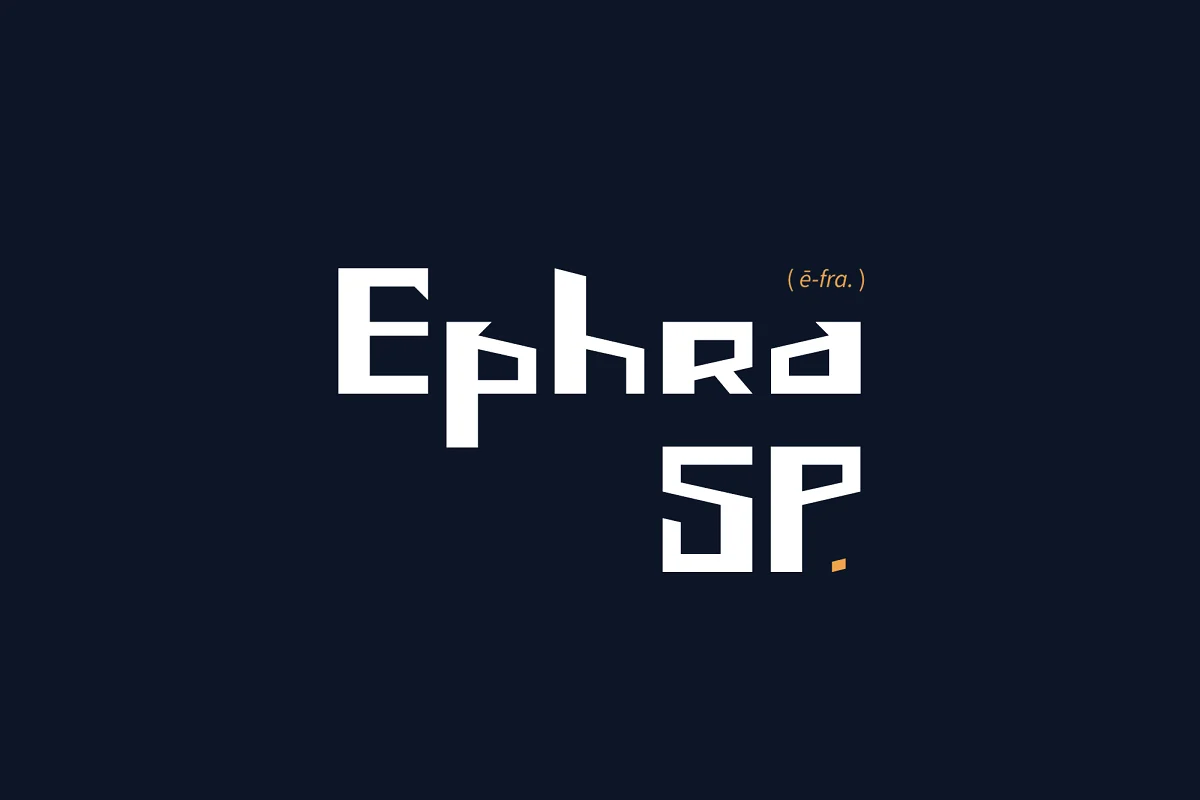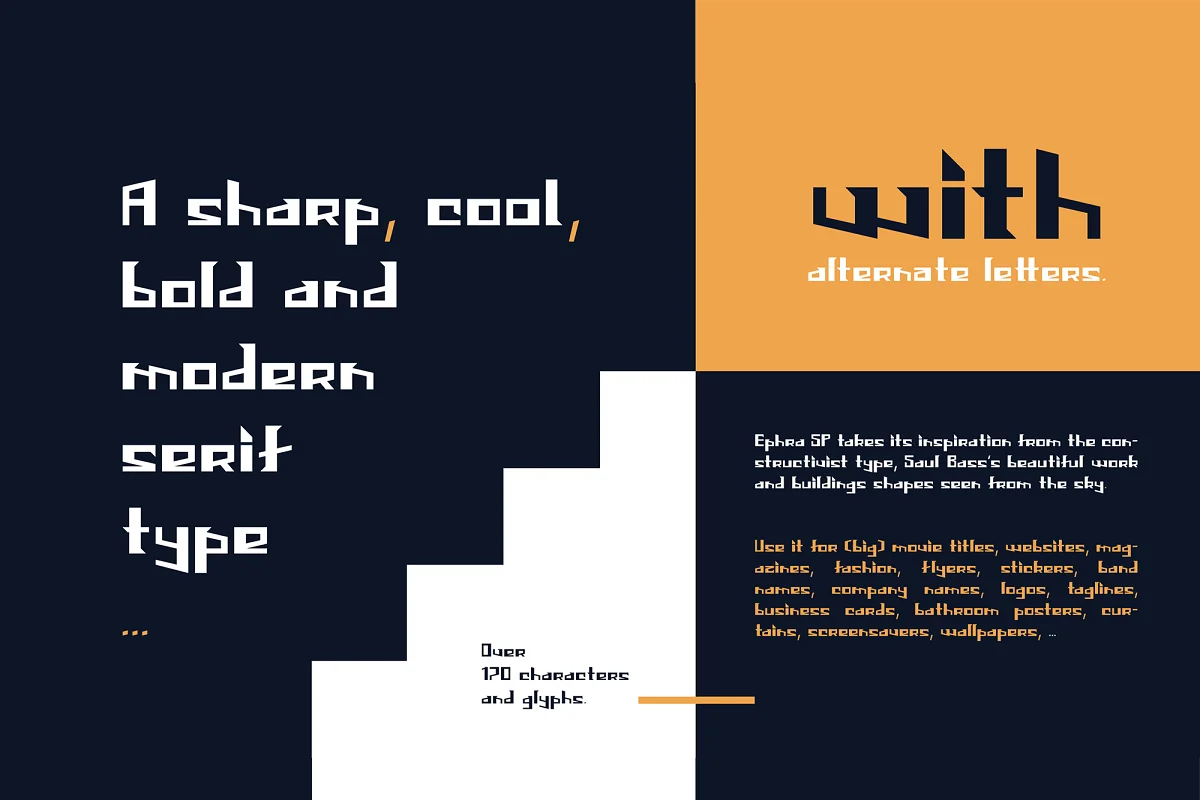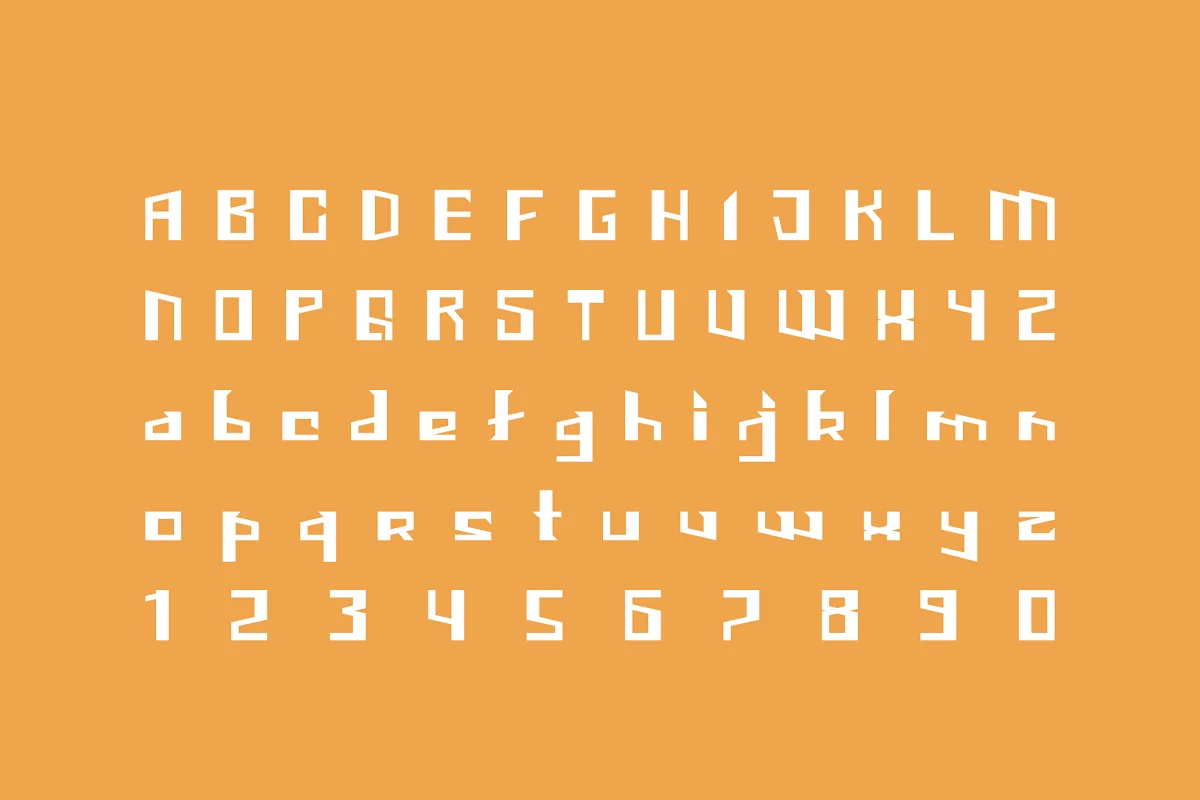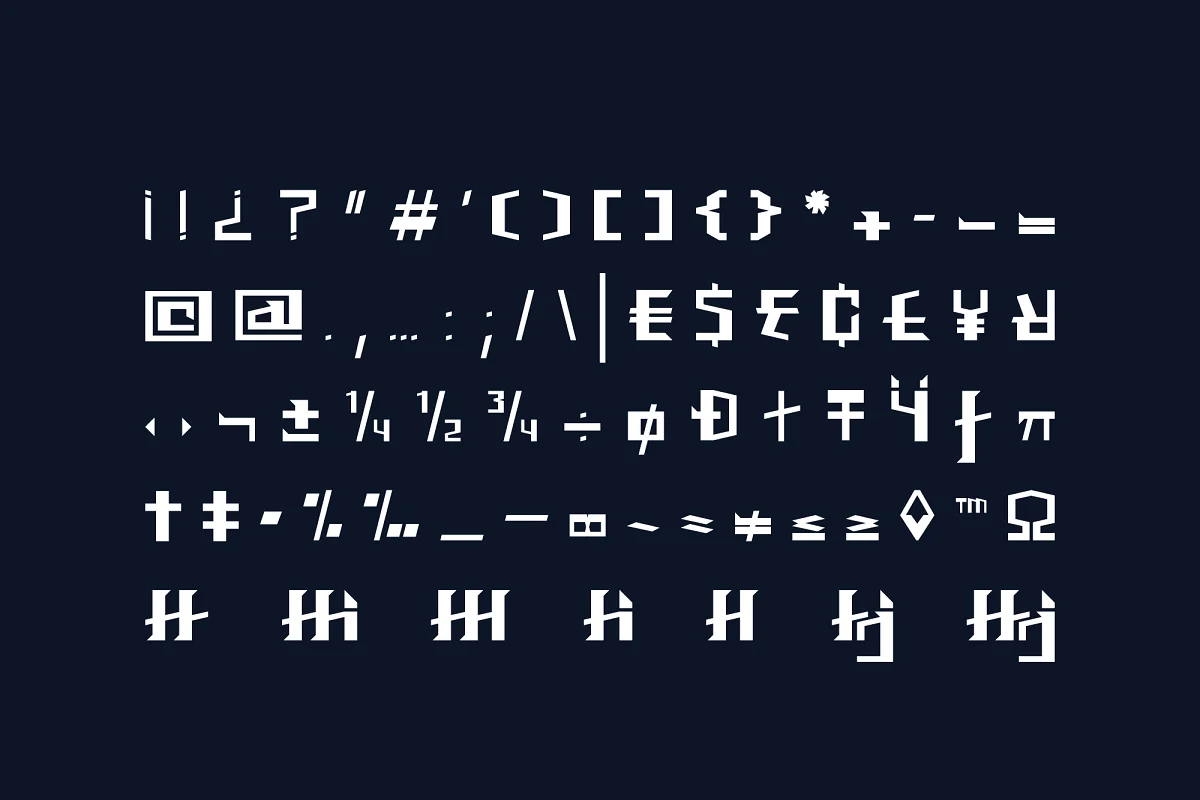
About the Ephra SP Sharp and Bold Font
A sharp, cool, bold, and modern serif type… with alternate letters. Crafted & designed by Emmeran Richard.
Ephra SP takes its inspiration from the constructivist type, Saul Bass’s beautiful work and buildings shapes seen from the sky.
Use it for (big) movie titles, websites, magazines, fashion, flyers, stickers, band names, company names, logos, taglines, business cards, bathroom posters, curtains, screensavers, wallpapers, …
- Over 170 glyphs
- Alternate letters
- Accents